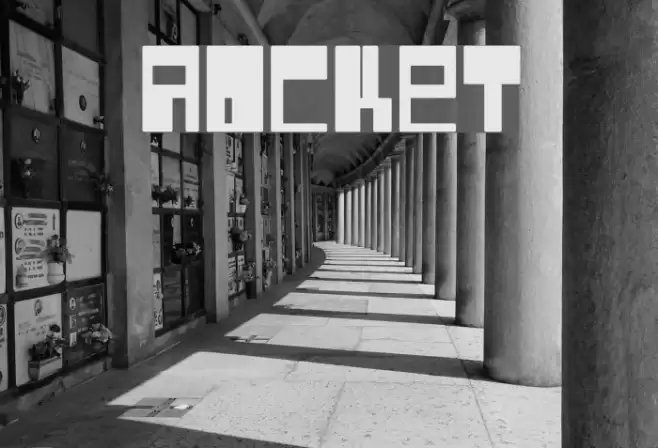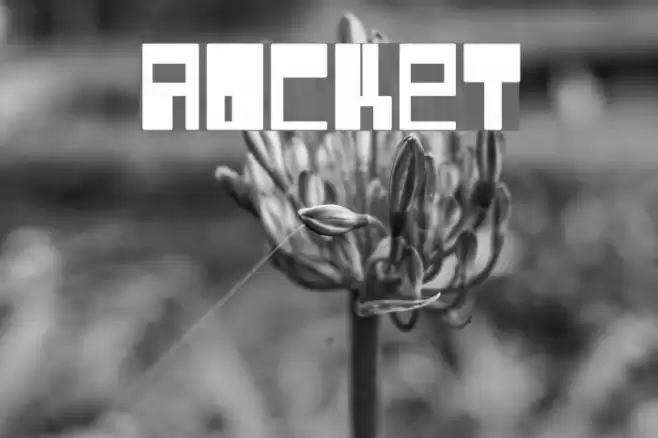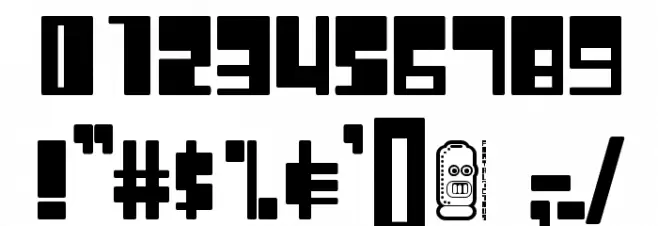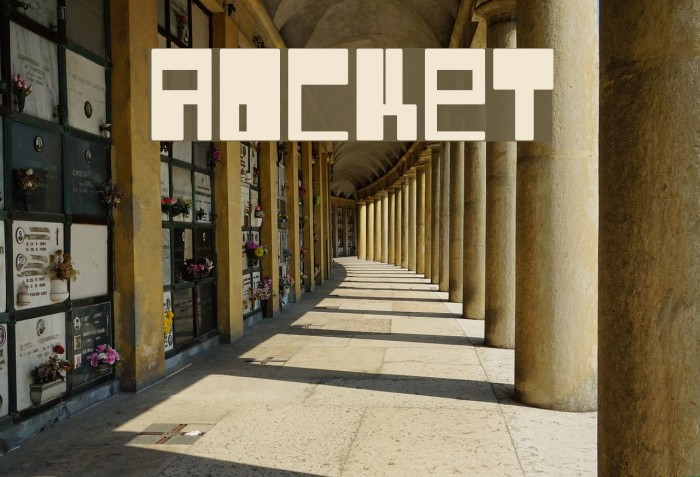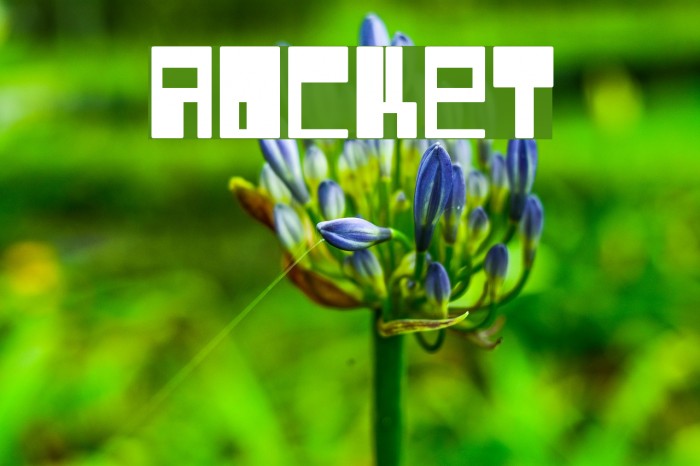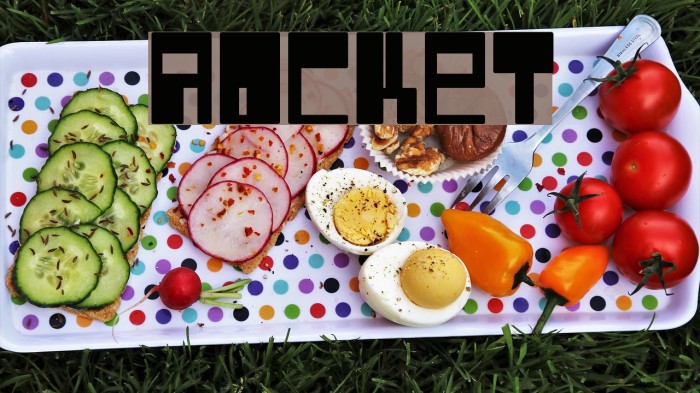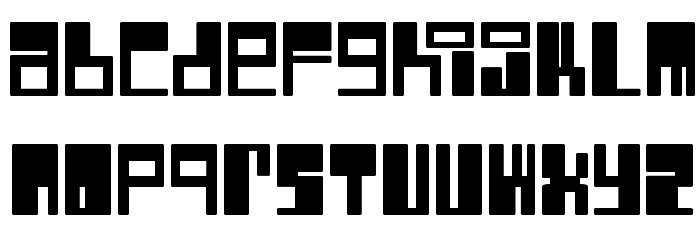
Rocket Font
Rocket Description
This font features a bold, geometric design with a futuristic aesthetic. The characters are constructed with thick, block-like shapes that give a sense of strength and modernity. The uppercase and lowercase letters maintain a consistent style, with angular edges and a uniform thickness throughout. The numbers and special characters follow the same design principles, ensuring a cohesive look. The font's unique style makes it stand out, perfect for projects that require a strong visual impact.
A bold, geometric font with a futuristic and modern aesthetic from Modern fonts.
- Proposed Projects: Ideal for sci-fi themed designs, video game graphics, posters, and branding that requires a modern and bold statement.